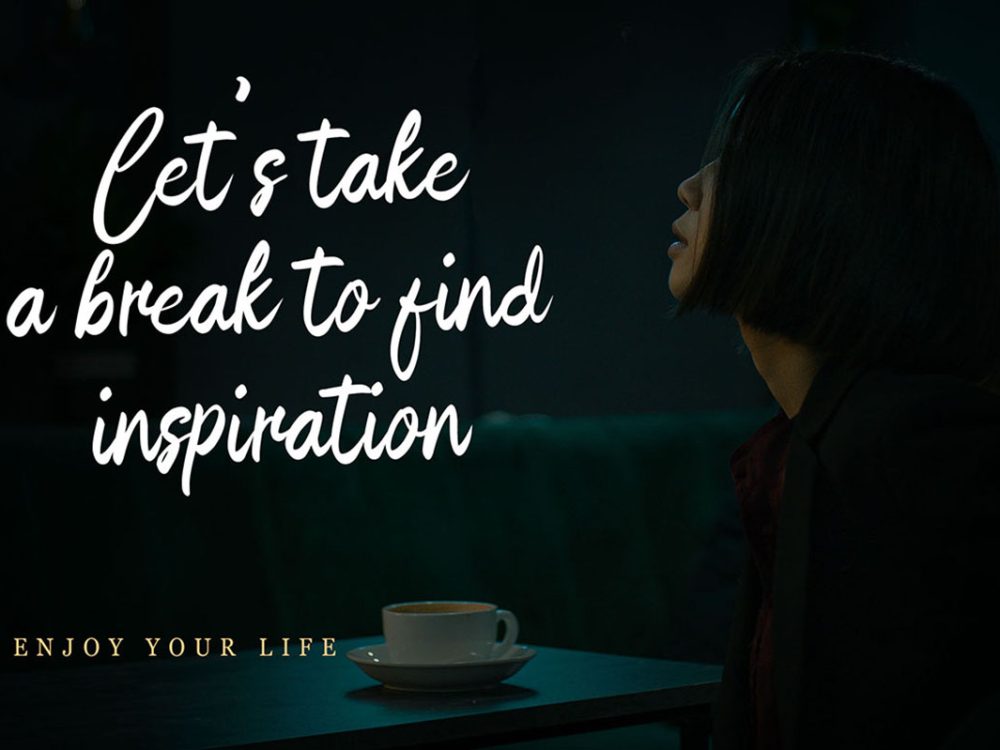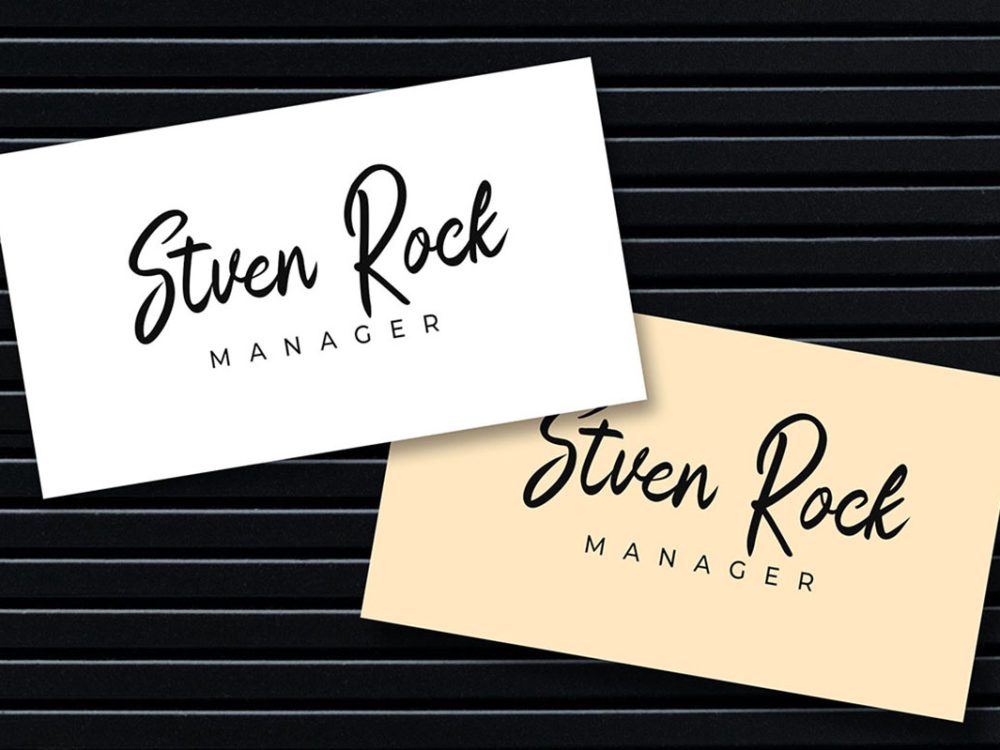
Introducing Angelitta Free Font – a graceful cursive paint-brushed script font that embodies smooth, flowing curves, making it an excellent choice for fashion branding and editorial designs. Infuse your projects with a touch of elegance by incorporating this font, and watch as it brings your creative vision to life. With Angelitta, your designs are bound to shine, leaving you enamored with the impeccable results. Embrace the beauty of this font and let it add a touch of sophistication to your work. If you like it don’t forget to check out the full version.